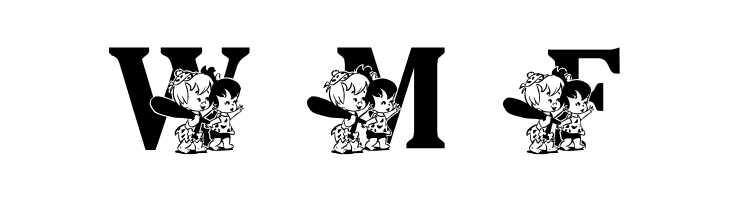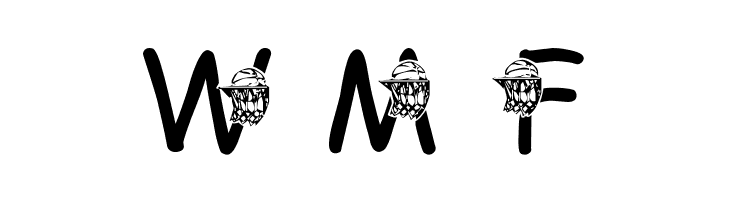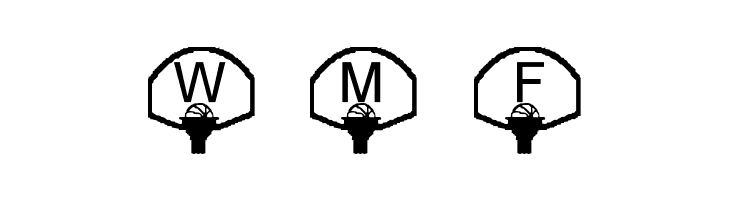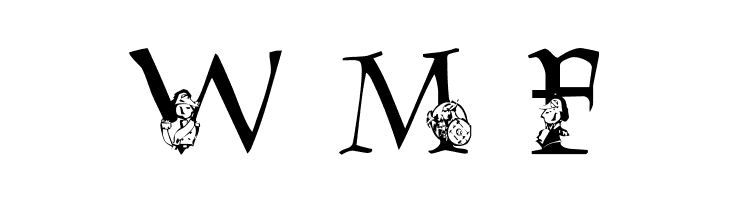
A bold, football-themed font with integrated sports elements.
A playful, cartoon-themed decorative font with bold characters.
A bold, angular font with a playful, retro video game style.
A bold, decorative font with stars and stripes, inspired by the American flag.
A bold, decorative font with tribal-inspired embellishments.
A bold, basketball-themed decorative font with dynamic swoosh elements.
A playful font with letters inside basketball hoops, perfect for sports themes.
A bold, decorative font with winter sports motifs integrated into each character.
A decorative font with warrior-themed illustrations integrated into each character.
A whimsical font featuring beloved children's show characters integrated into bold, sans-serif letters.
A playful, decorative font with cowboy-themed illustrations inside bold letters.
A bold, playful font with handball player motifs integrated into each character.
A bold, modern font with a strong geometric structure and clean lines.
A bold, decorative font with Nepalese cultural elements and landmarks.
A decorative font with characters embedded in grand piano silhouettes, ideal for music-themed designs.
A decorative font with characters enclosed in heart shapes topped with crosses.
A bold, geometric font with a strong, angular design, ideal for sports themes.
A bold, jagged font with a spooky, horror-themed design.